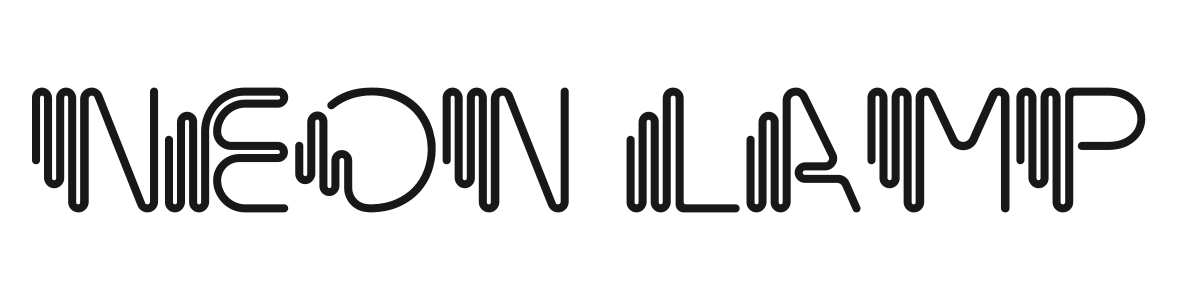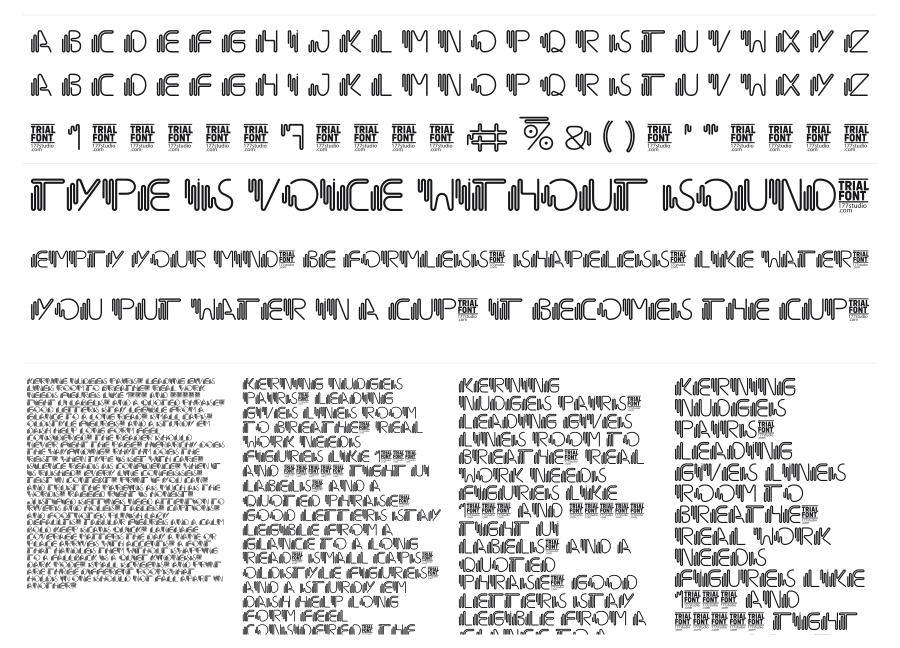
Neon Lamp
Neon Lamp is a geometric inline display font that mimics the glowing parallel tubes of neon signage. Each character is filled with tightly spaced parallel lines, creating a striking visual texture that reads as both retro and futuristic. It pulls from 1970s disco aesthetics and Art Deco structure, making it a strong choice for nightlife branding, music posters, and entertainment graphics.